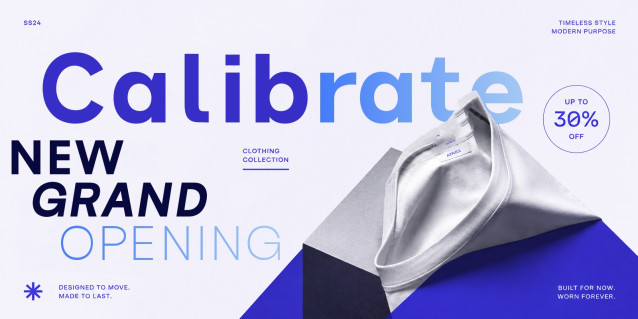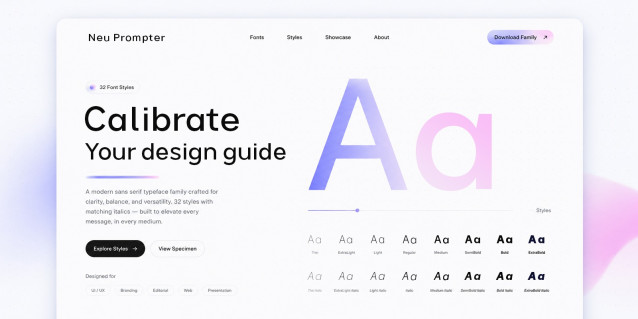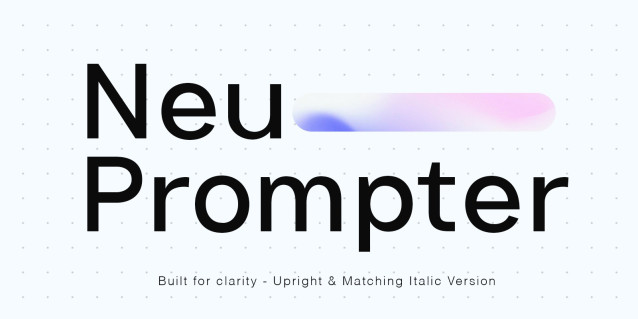
Neu Prompter Font Family
Neu Prompter Font Family is a modern, clean sans-serif typeface meticulously engineered for ultimate legibility. With its sharp, minimalist aesthetic, it is “built for clarity” and comes in both Upright and Matching Italic versions. It’s the perfect choice for tech branding, UI/UX design, and sleek, contemporary layouts.